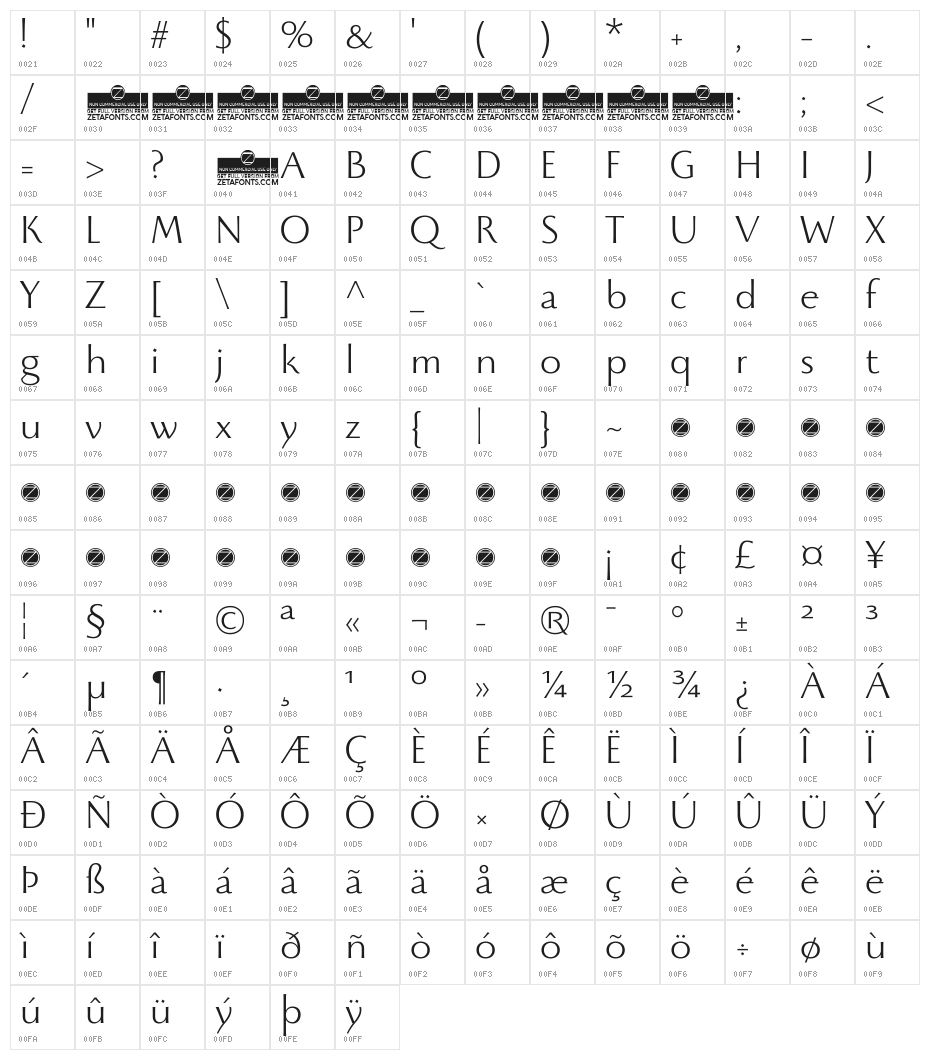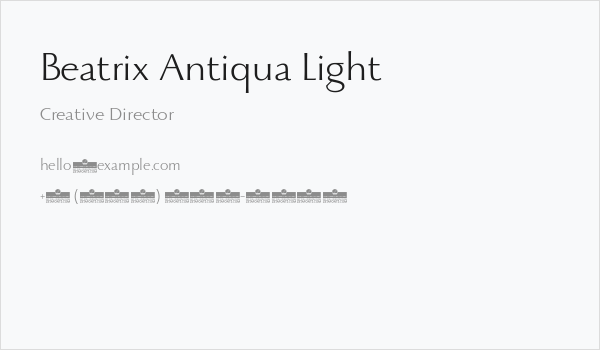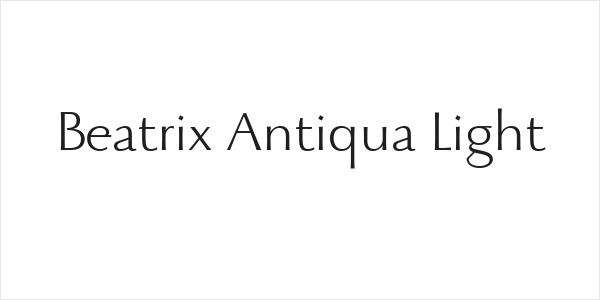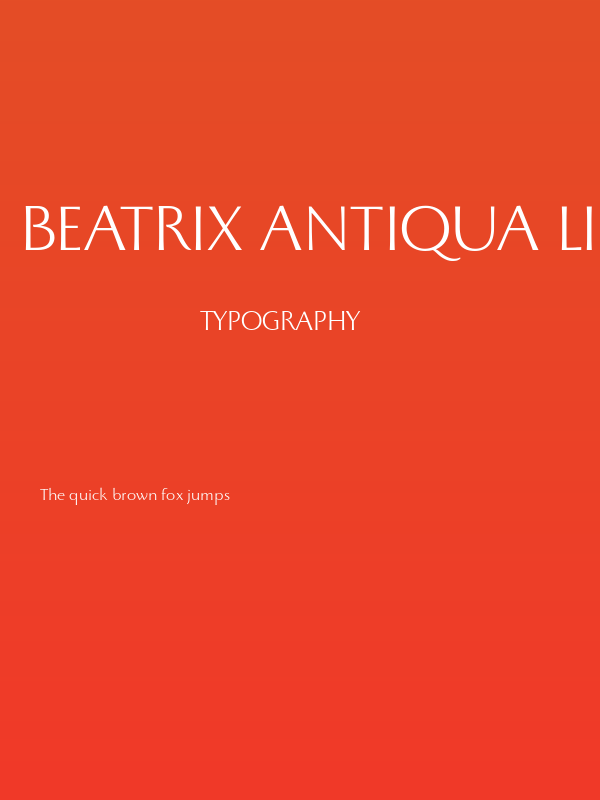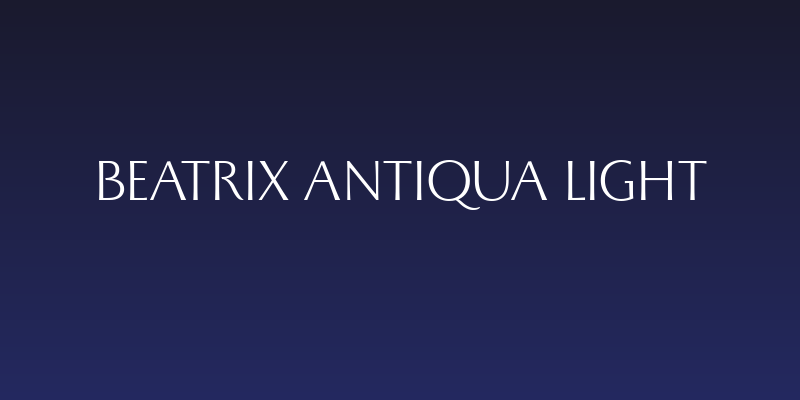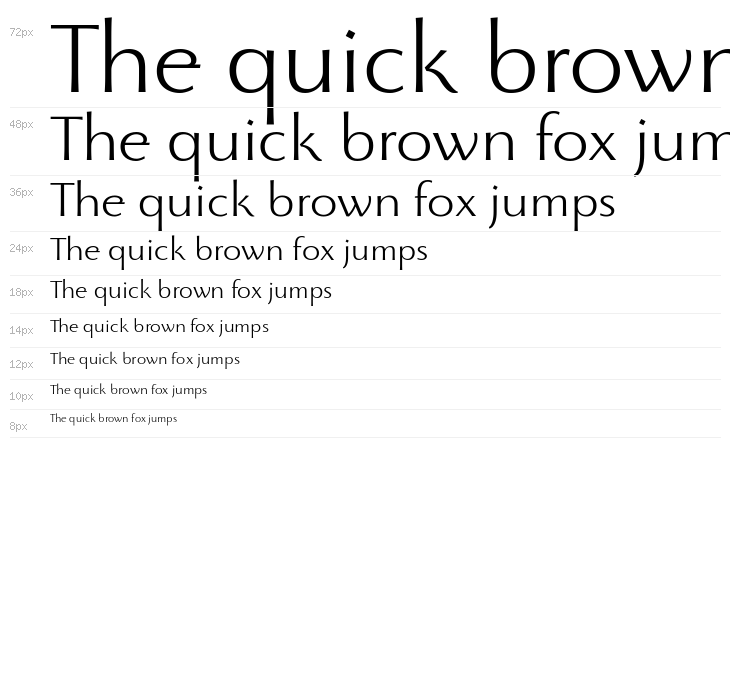
Beatrix Antiqua Light Font
Beatrix Antiqua Light Description
This font presents a refined and elegant serif style, characterized by its light and airy appearance. The uppercase letters exhibit a classic form with subtle curves, while the lowercase letters maintain a consistent flow, enhancing readability. The numerals are well-proportioned, aligning seamlessly with the overall design. Special characters are crafted with precision, adding to the font's versatility. The thin strokes and gentle serifs contribute to a sophisticated aesthetic, making it suitable for a variety of applications where a touch of class is desired.
| Proposed Projects | Ideal for editorial design, luxury branding, wedding invitations, and elegant packaging. |